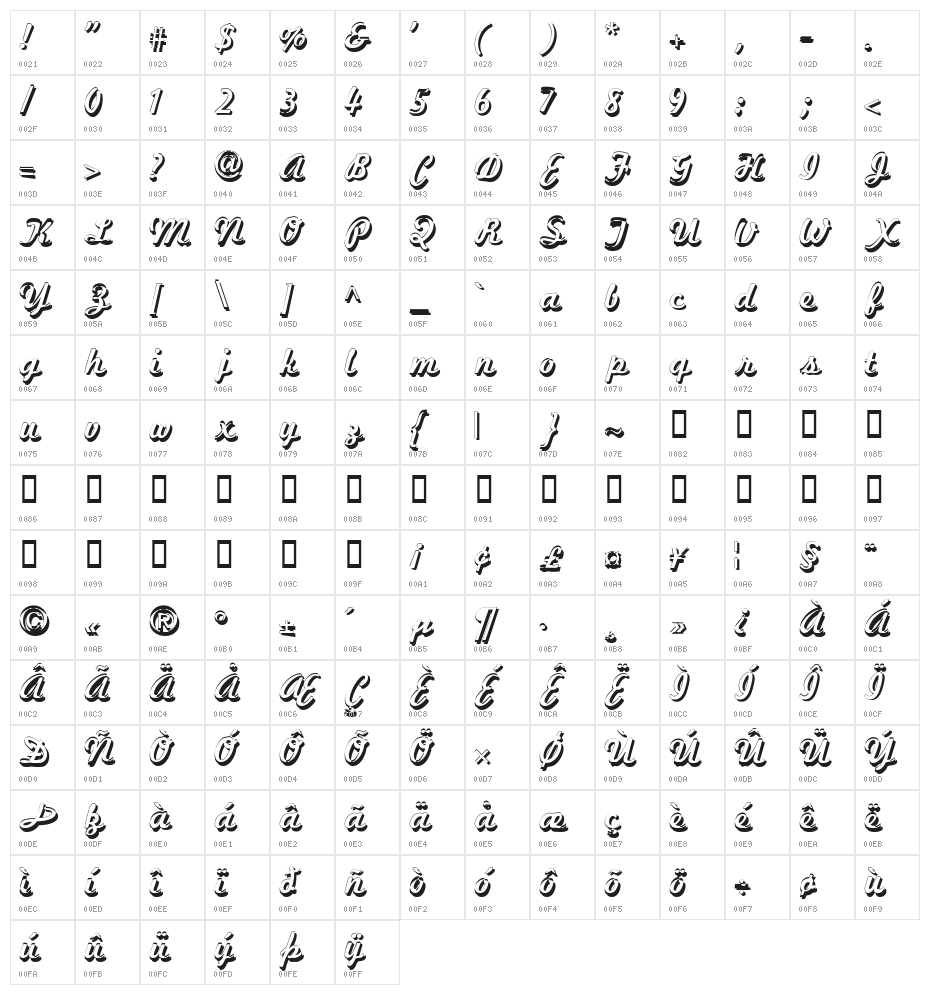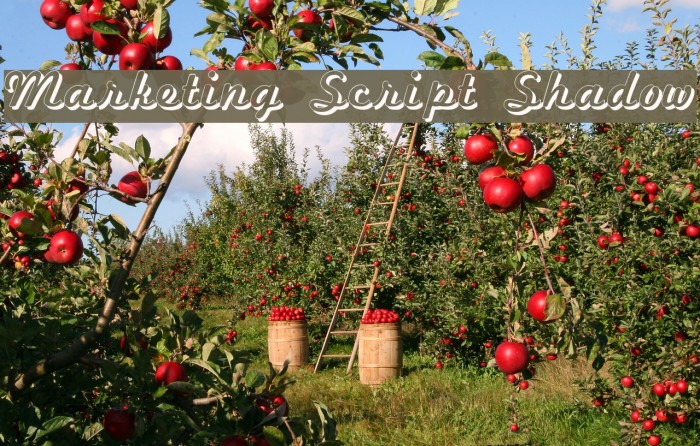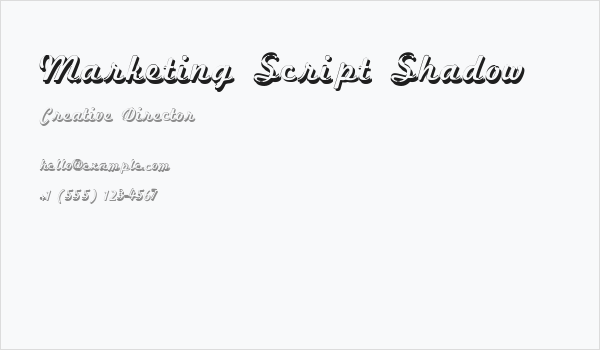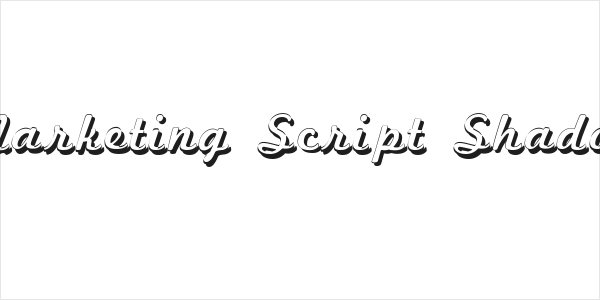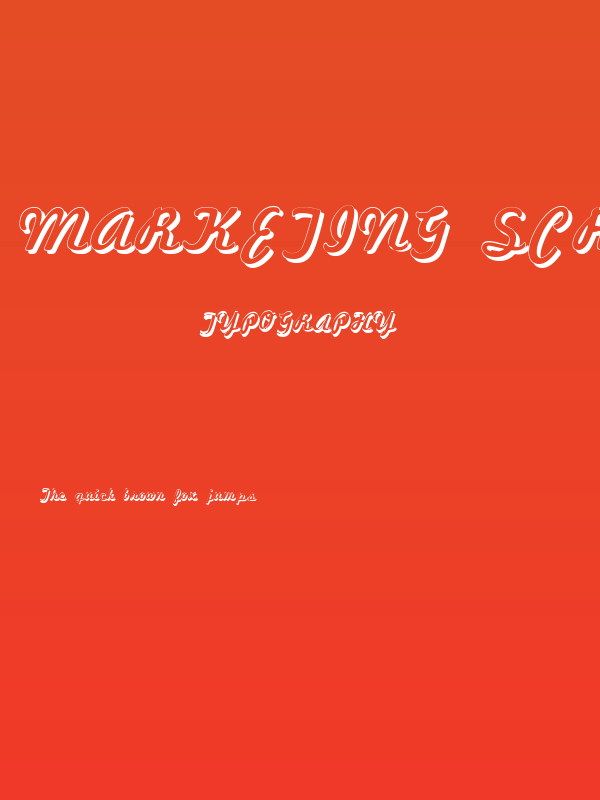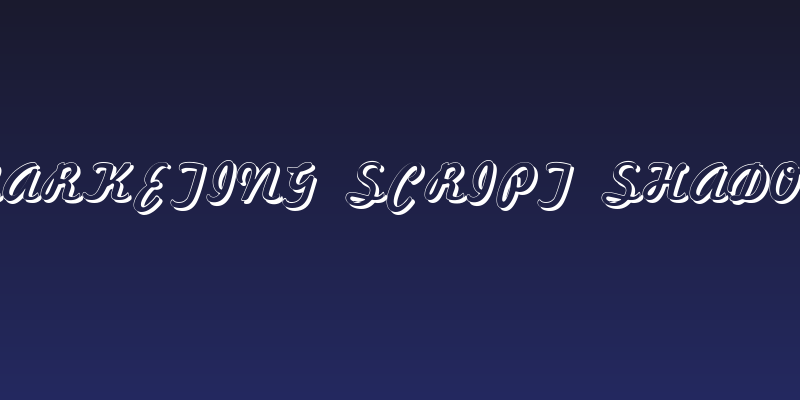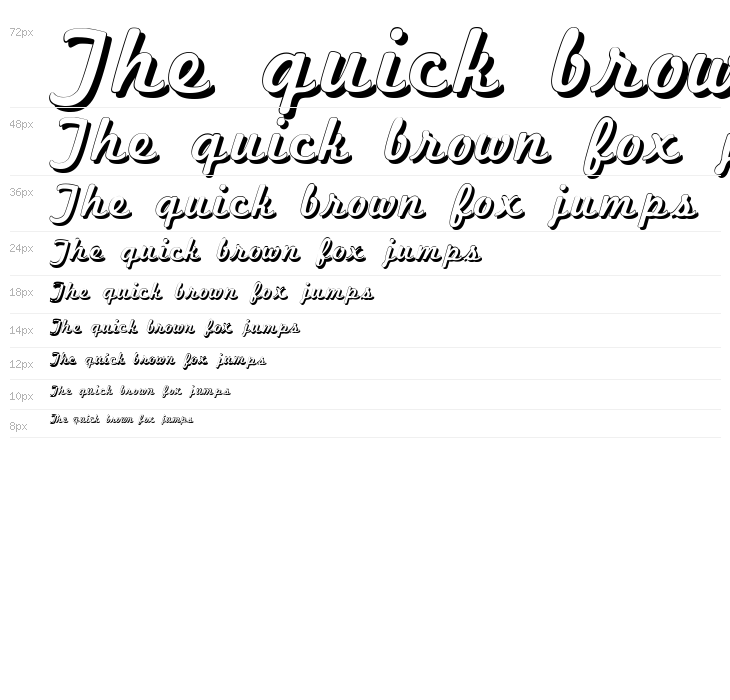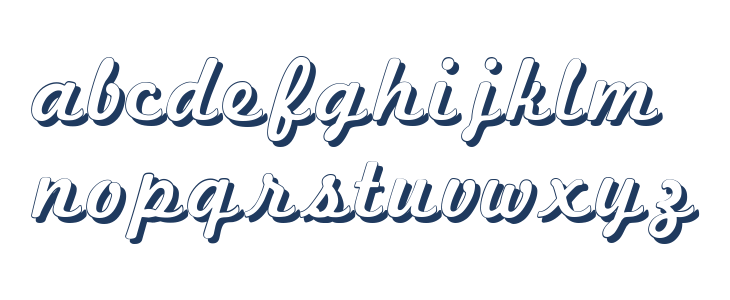
Marketing Script Shadow Font
Marketing Script Shadow Description
This font features a bold, cursive script style with a distinct shadow effect that gives it a three-dimensional appearance. The letters are connected, creating a flowing and dynamic look. The uppercase and lowercase letters maintain a consistent style, with smooth curves and elegant loops. The numerals and special characters are designed to match the script's fluidity, adding a cohesive feel to the overall font. The shadow adds depth, making it stand out, ideal for eye-catching designs.
| Use Case | Logos, Headlines, Posters |
| Proposed Projects | Ideal for branding, logos, posters, invitations, and any design requiring a stylish, eye-catching script. |